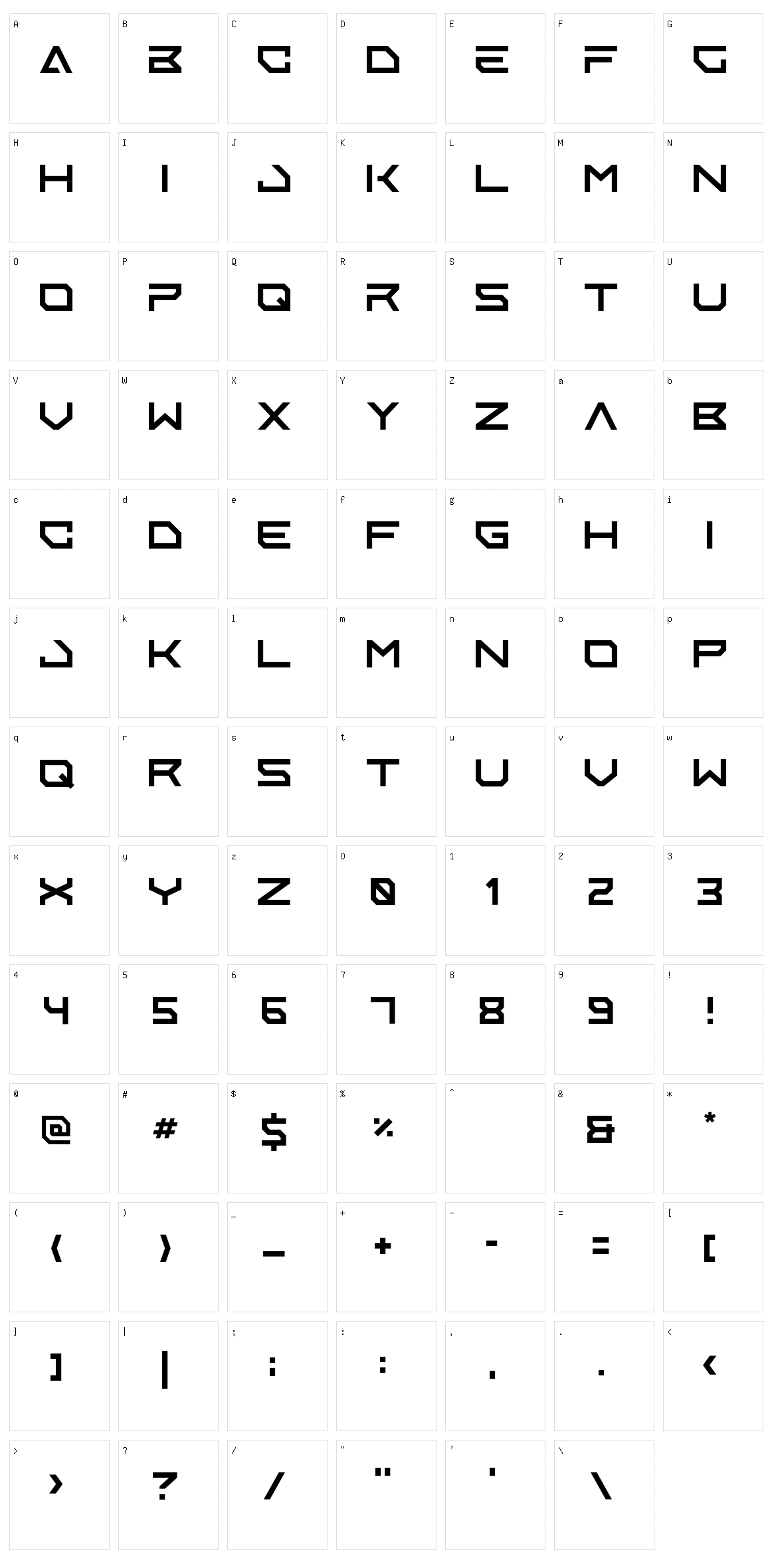
The free font Enixe is carefully designed by Foyez Uddin, showcasing a thoughtful balance of creativity and usability and falls under the Square font style. When you download the ZIP file, it contains only 11.26 KB of font files, making it lightweight and quick to download. Please review the license details below to understand permitted usage and distribution rights. If license information is not available, we recommend using this font for personal projects only or contacting the author directly for commercial usage permissions.
Enixe Typeface.